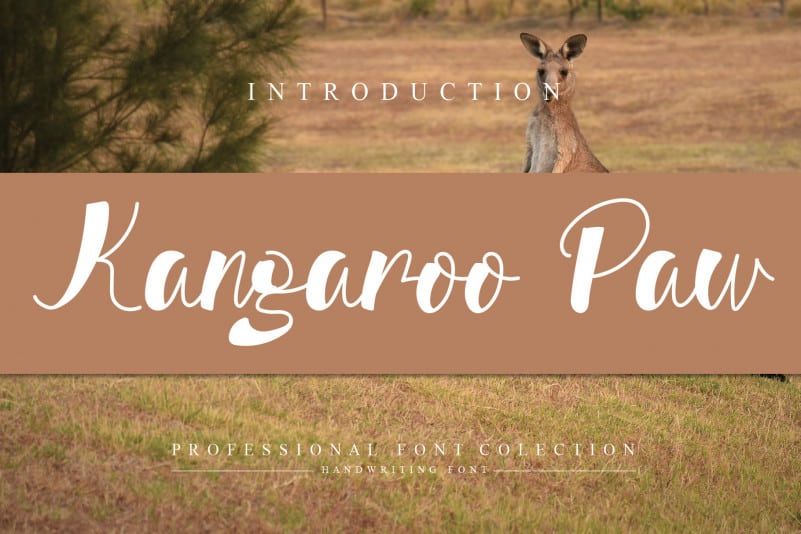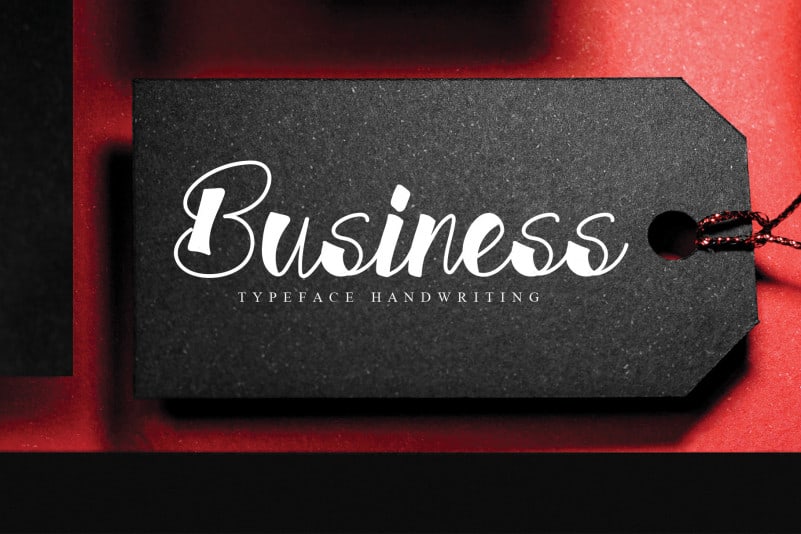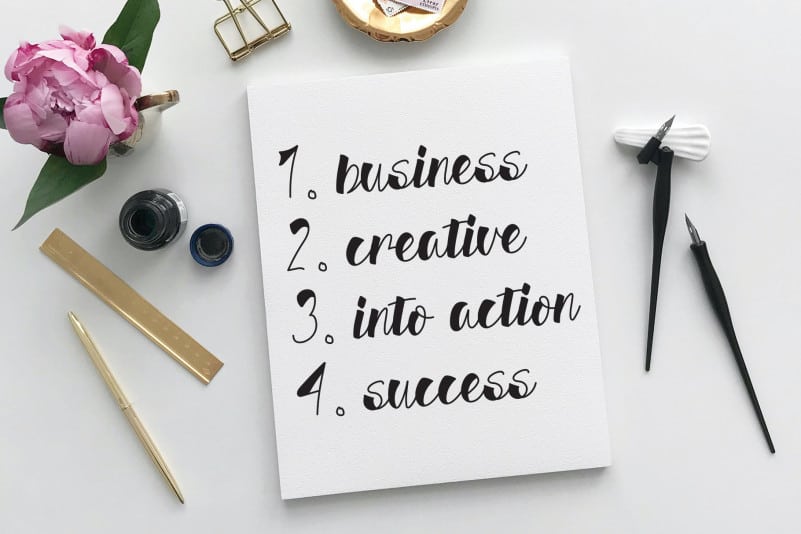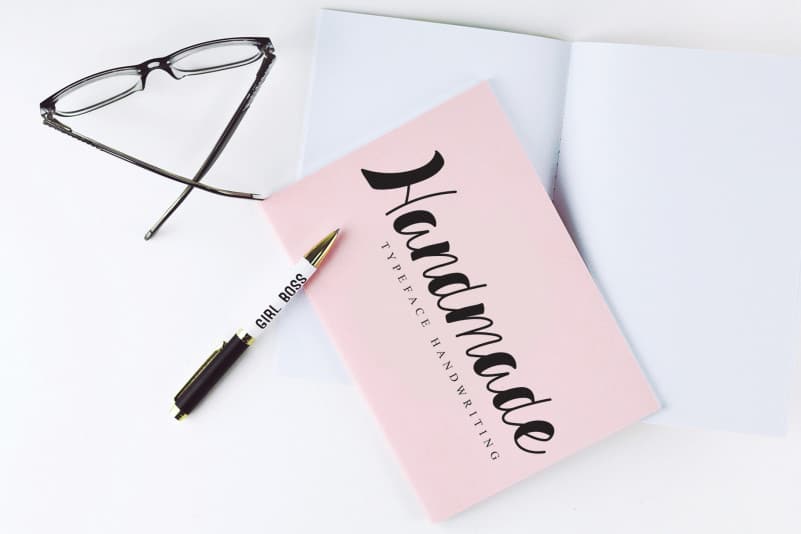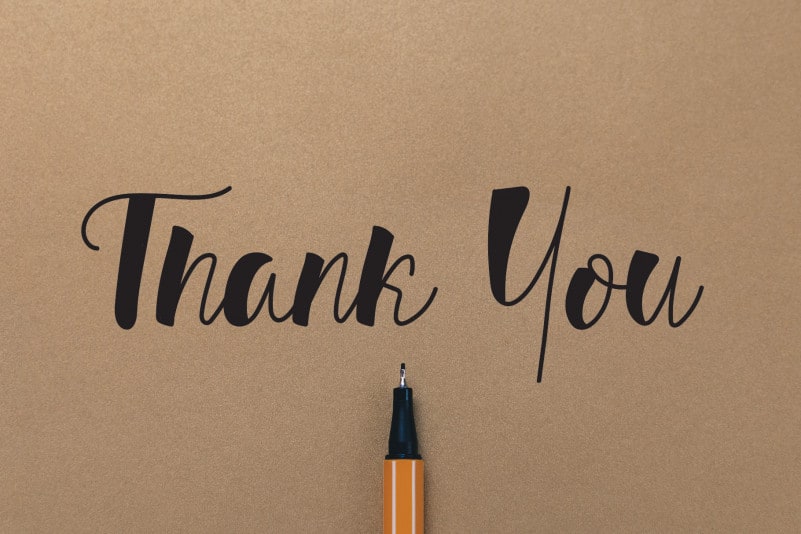
Kangaroo Paw Script Font
Kangaroo Paw Script Font is a classy and trendy handwritten font. Incredibly original, this font will elevate your designs to the highest levels!